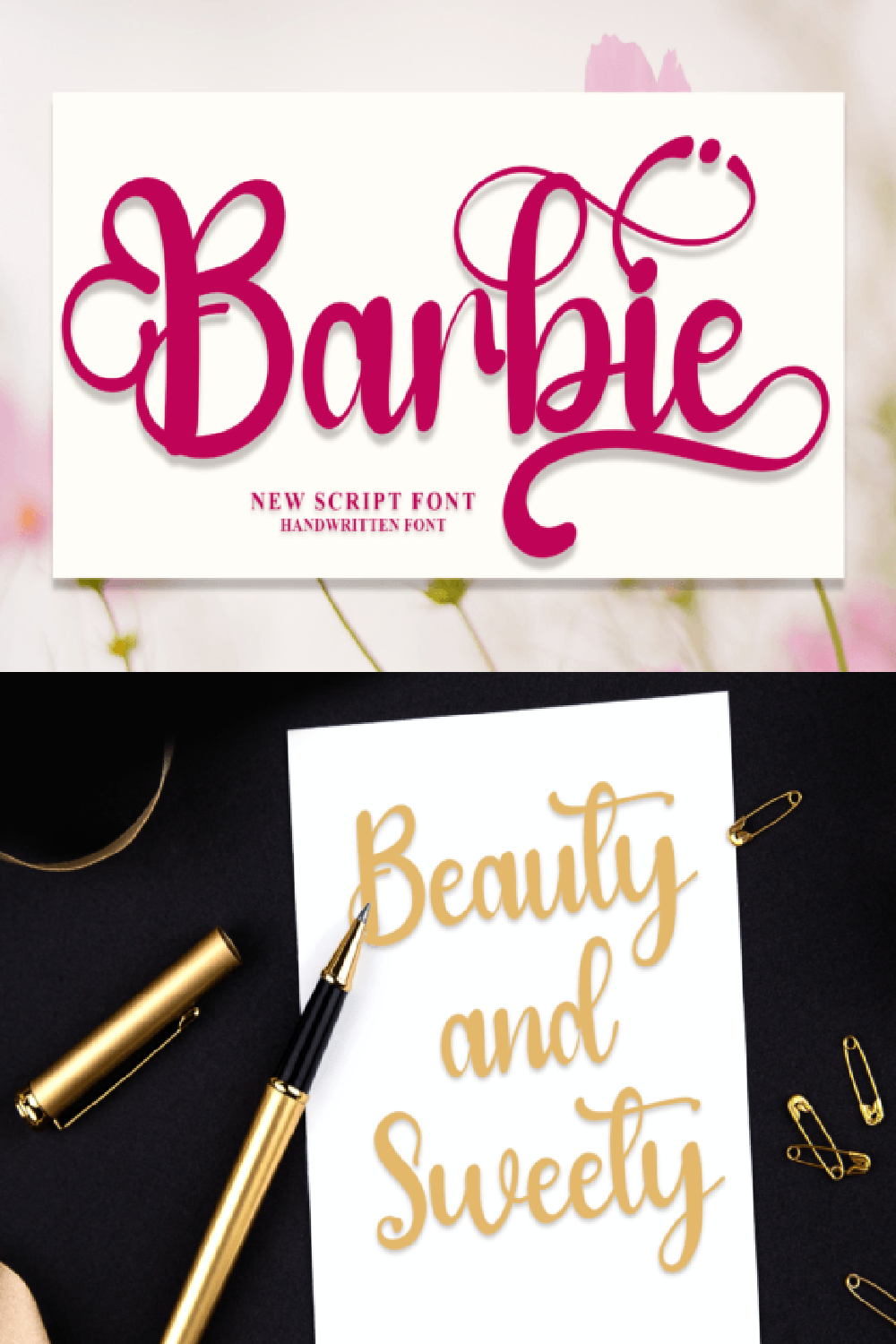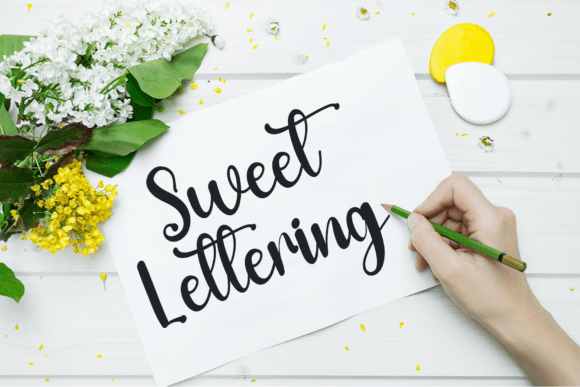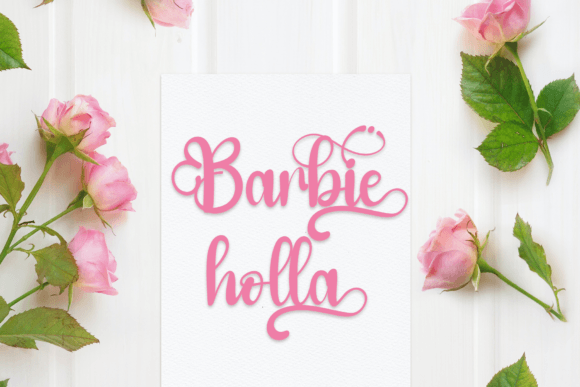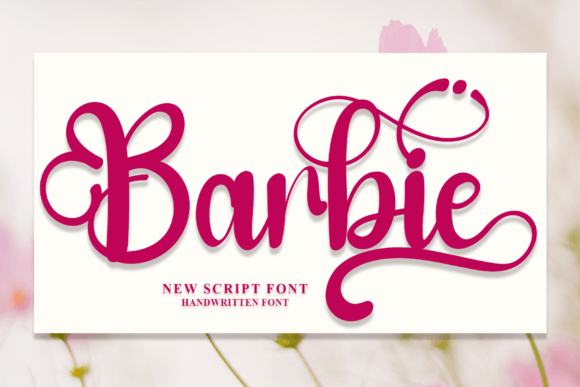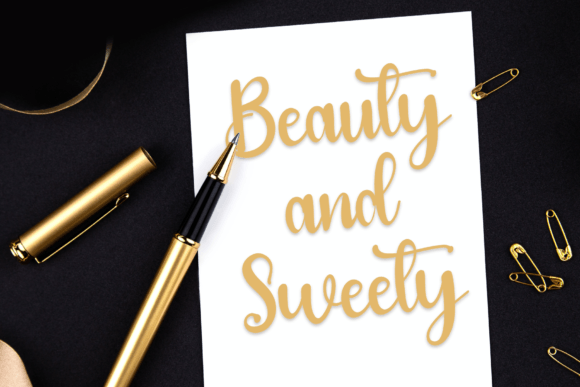
The Barbie Font offers a perfect balance of form and function for your design needs. Barbie is a stylish handwritten font with a contemporary atmosphere and impeccable form, inspired by a timeless classic calligraphy. Balanced and varied, this font was designed to enhance the beauty of your projects.